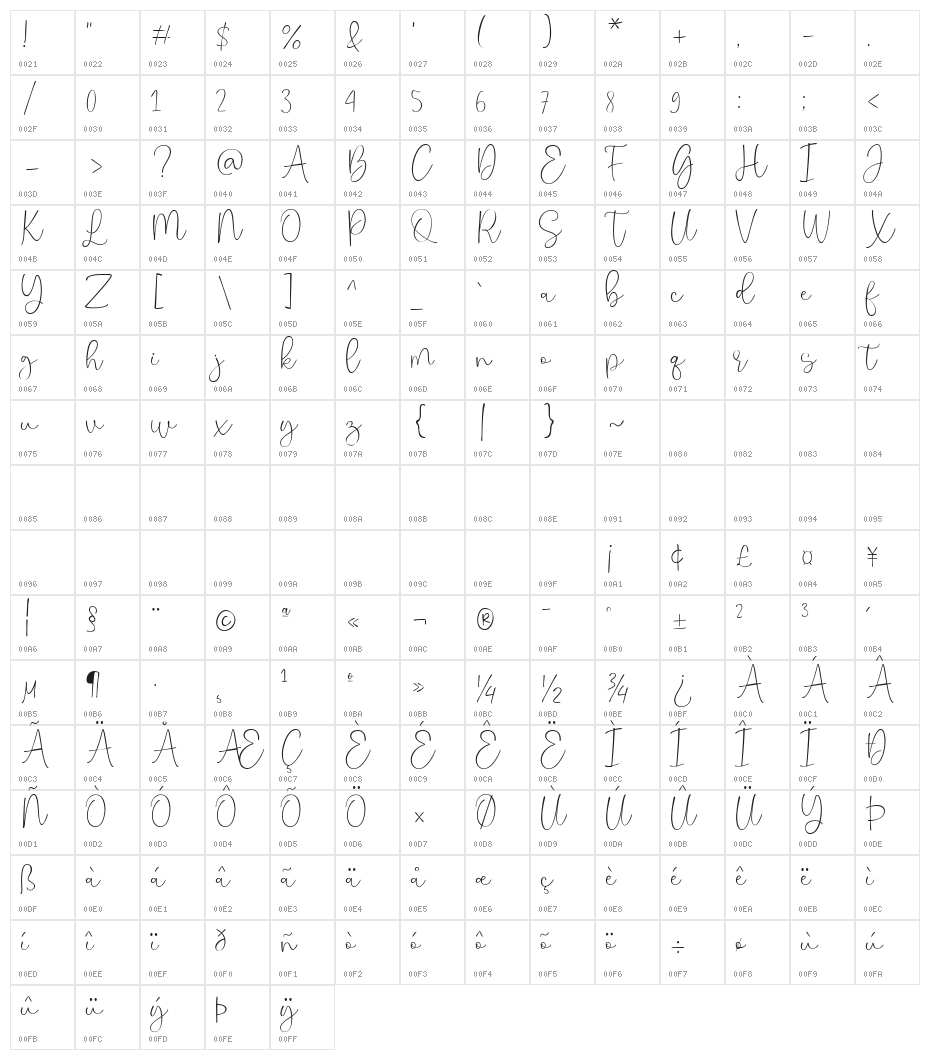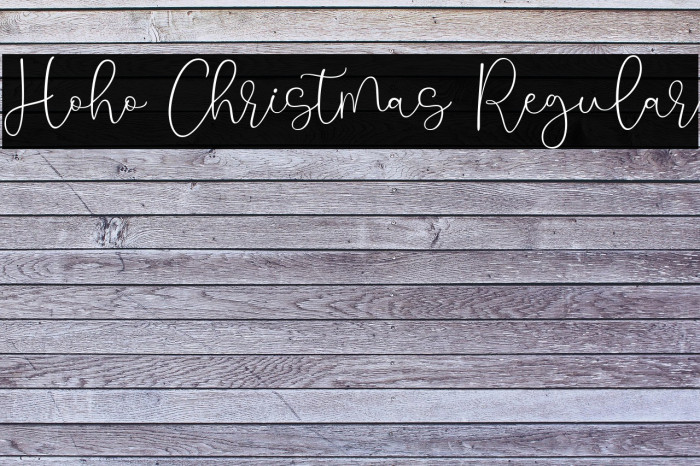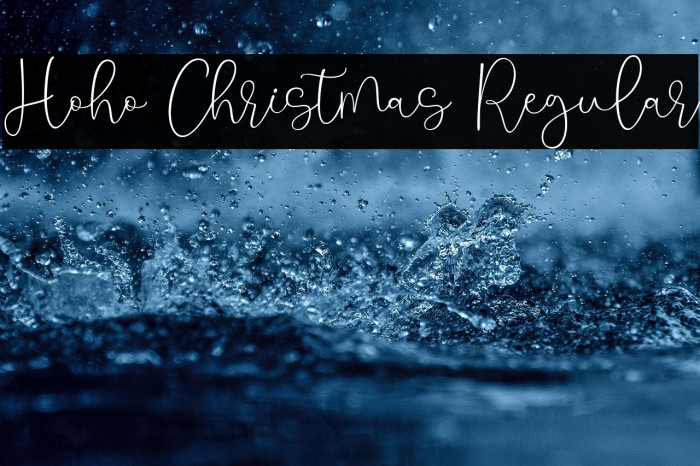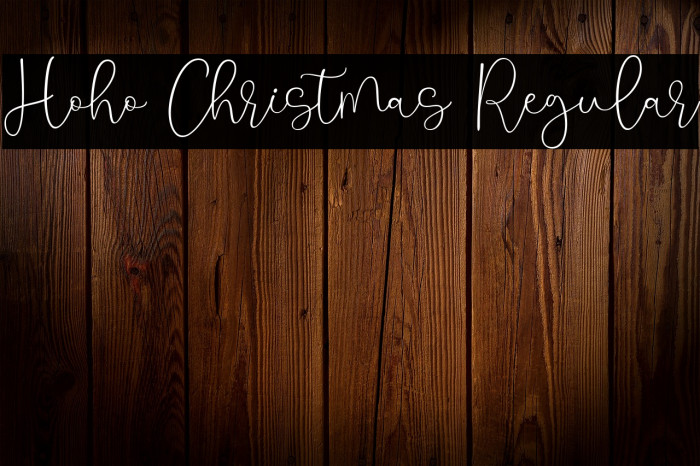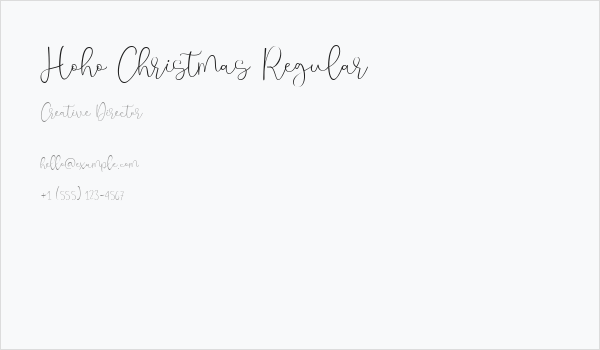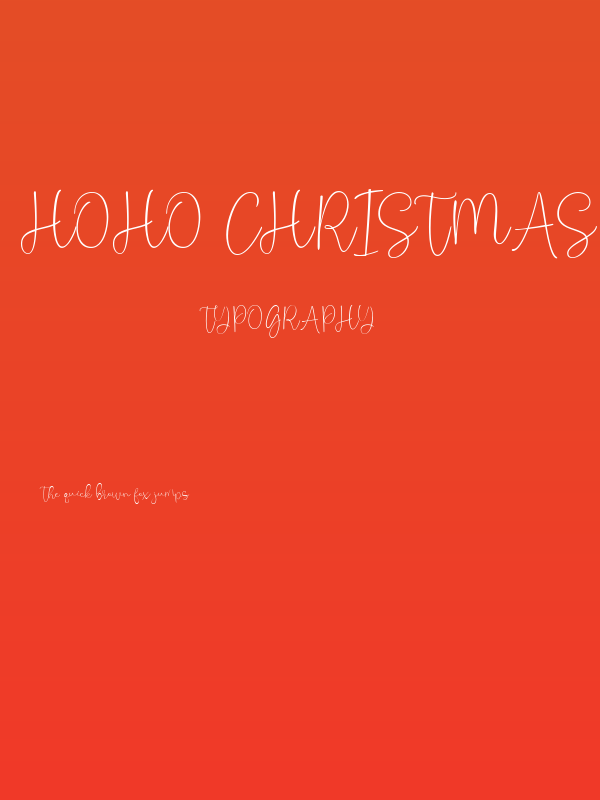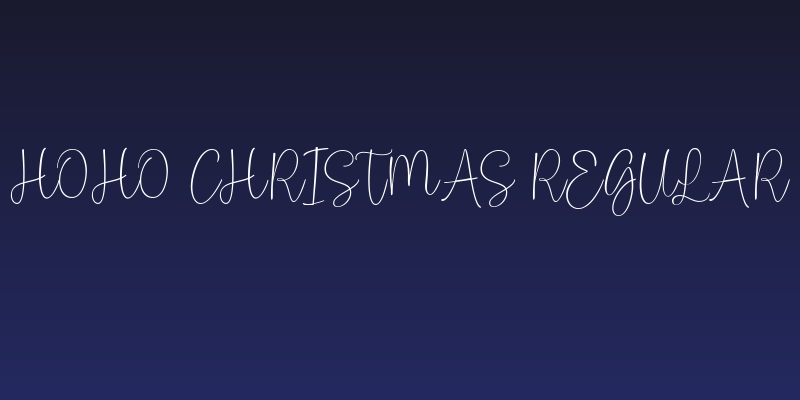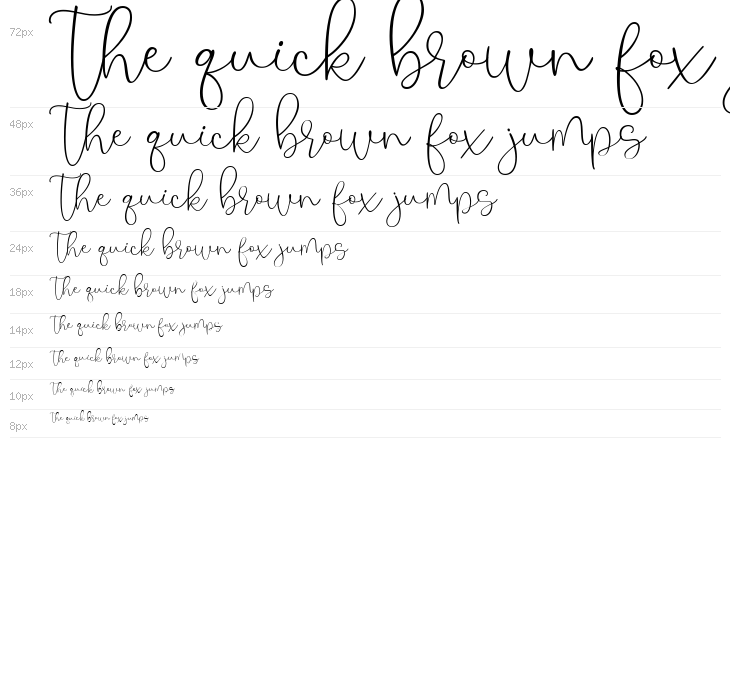
Hoho Christmas Regular Font
Hoho Christmas Regular Description
This font exudes a playful and whimsical charm, characterized by its flowing, cursive script style. The letters are elegantly connected, creating a sense of fluidity and movement. The uppercase letters maintain a consistent height, while the lowercase letters feature charming loops and swirls, adding to the font's festive appeal. The numerals are clear and legible, complementing the overall design. Special characters are thoughtfully integrated, maintaining the font's cohesive look. This font is perfect for adding a touch of joy and elegance to any project.
| Proposed Projects | Ideal for holiday cards, festive invitations, decorative signage, and branding materials. |